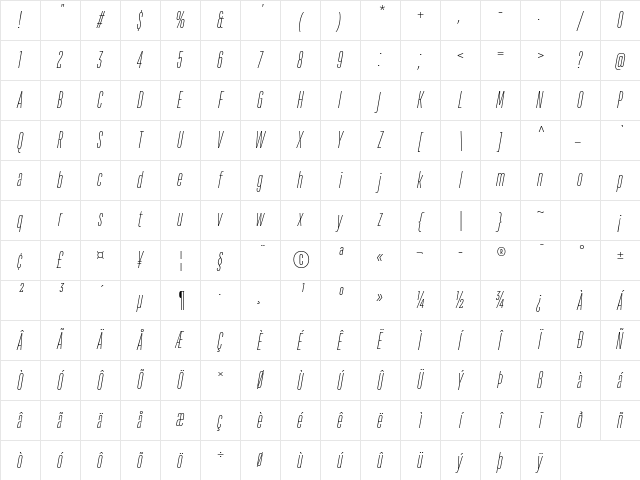
TT Bluescreens Trial Thin Italic Free Font
TT Bluescreens Trial Thin Italic
Style: Thin Italic
Designer: Designed by Ivan Gladkikh, Yulia Gonina. Technical designers Marina Khodak, Ekaterina Kurtova, Radik Tukhvatullin, Lada Sobchenko, Antonina Zhulkova, Maria Mezernitskaya, Olexa Volochay, Nadyr Rakhimov, Yuriy Nako, Victor Rubenko.
Design Context for TT Bluescreens Trial
TT Bluescreens Trial is a composed and adaptable typeface that performs quietly and consistently across a wide range of design contexts. The slanted form adds forward momentum and visual energy. Its slender proportions lend an understated elegance to any composition.